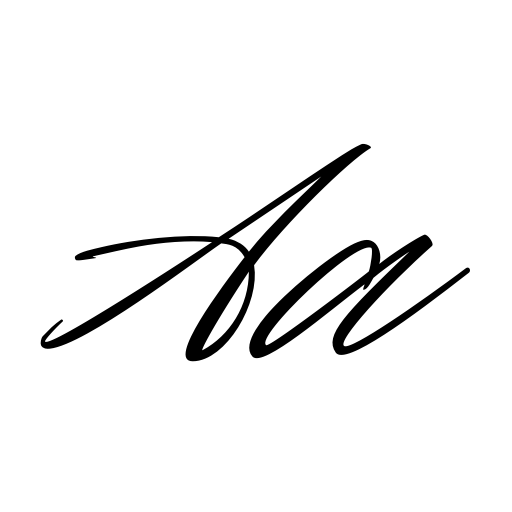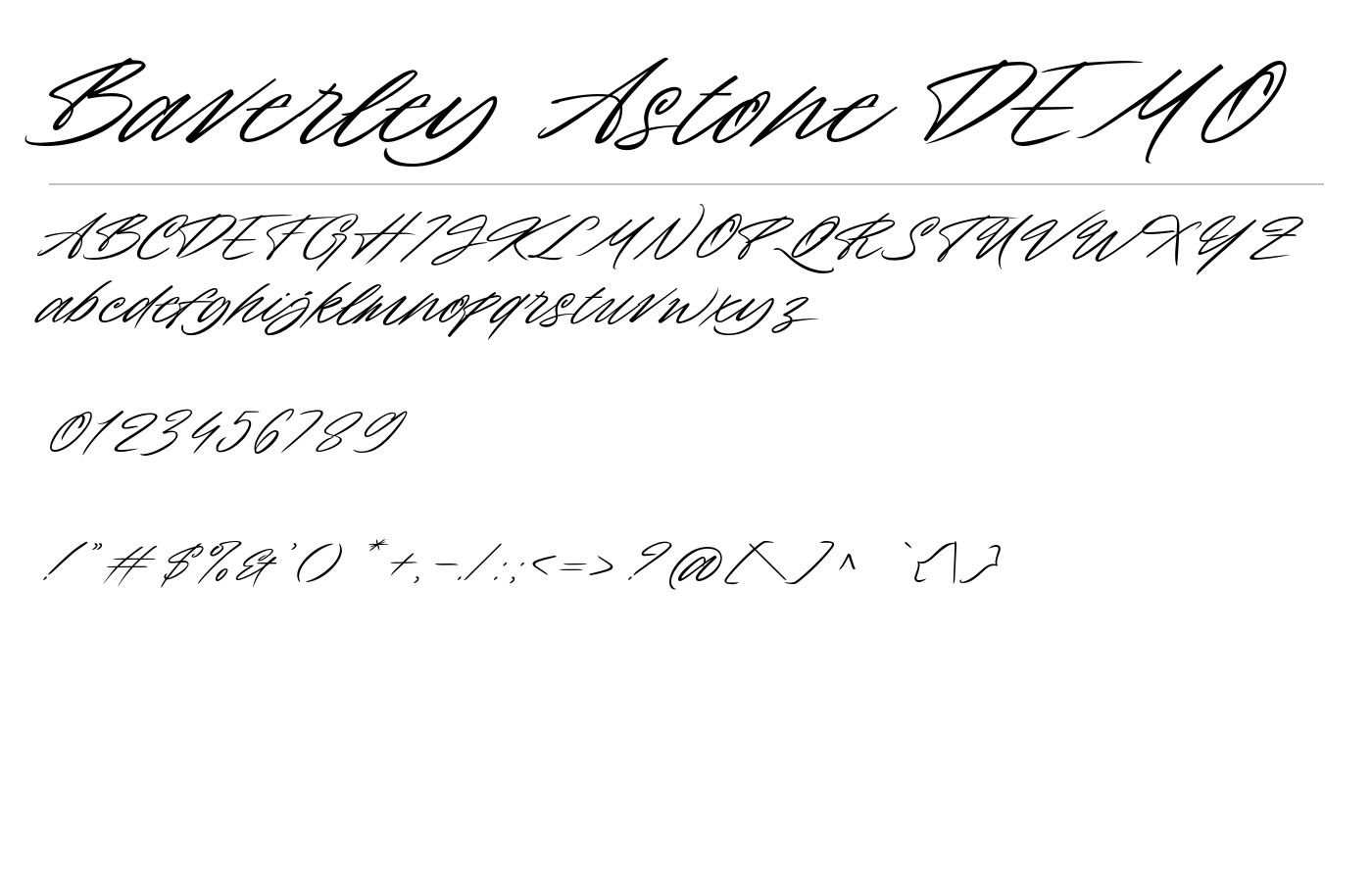
Baverley Astone DEMO is a delicate, flowing script font with elegant, handwritten letterforms that bring a refined and personal touch to any design. Its thin strokes and graceful curves evoke a sense of sophistication and charm, making it perfect for invitations, branding, and editorial projects that seek a stylish yet approachable feel. This font works beautifully where a sense of elegance and individuality is desired, enhancing luxury, fashion, and artistic moods with its refined personality.
Baverley Astone DEMO Font
About Baverley Astone DEMO Font